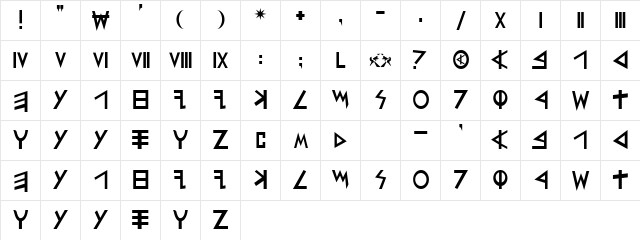
Eshmoon Regular
Design Context for Eshmoon Typeface
Eshmoon is a composed and adaptable typeface that performs quietly and consistently across a wide range of design contexts.